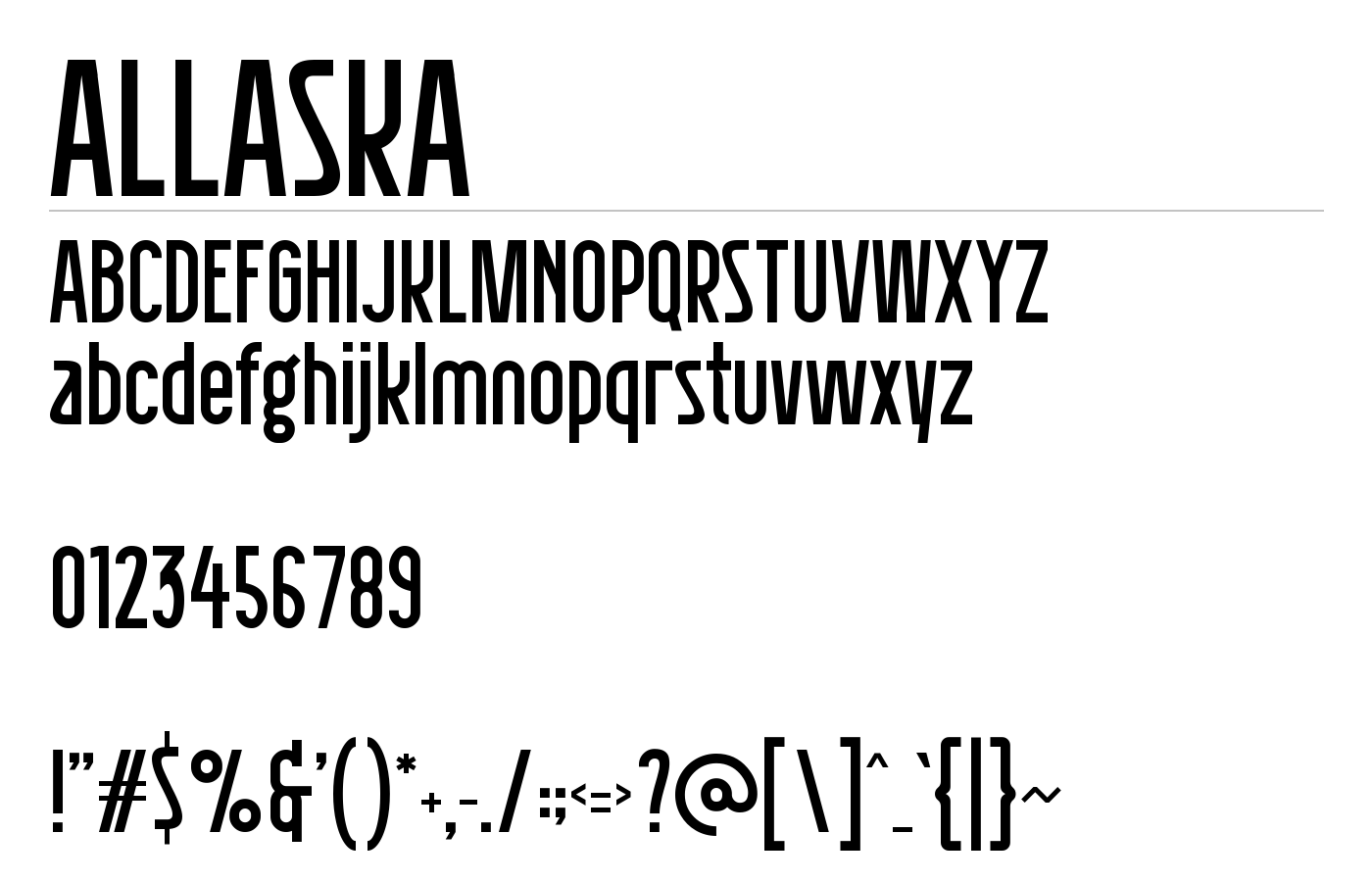
ALLASKA is a tall, condensed sans serif font with a modern and slightly edgy style, featuring uniform weight and clean, sharp strokes that create a strong and distinctive presence. Its narrow letterforms, single-story 'a,' and unique details like the angular 'R' and 'Q' give it a bold, contemporary look ideal for eye-catching headlines, logos, and branding that seek a sleek, urban vibe. This font works well in design contexts where impact and clarity are key, especially for fashion, editorial, or tech-focused projects.
ALLASKA Font
About ALLASKA Font
| Font family | ALLASKA Font |
| Designer | Febrie Setiawan |